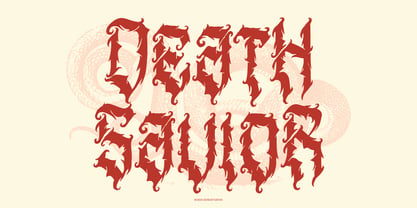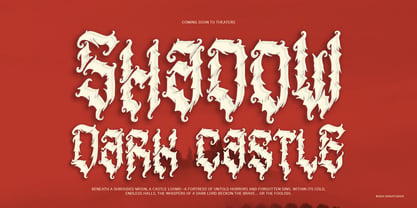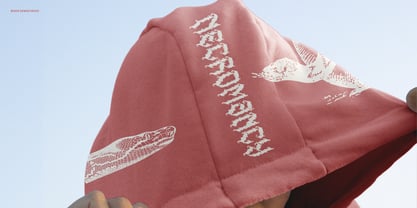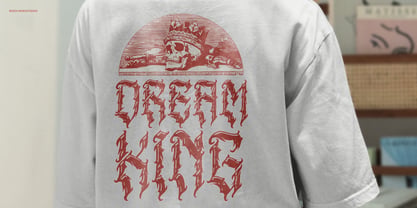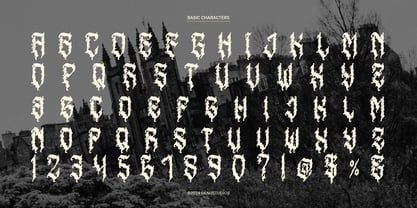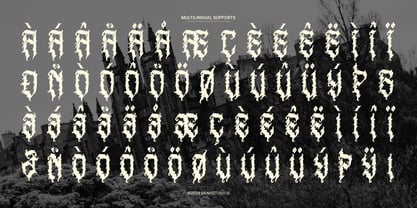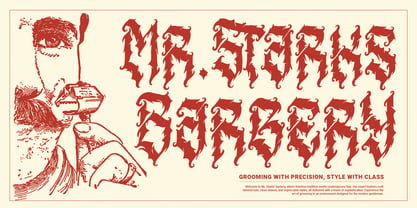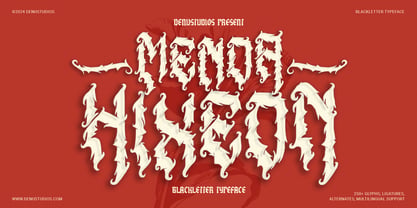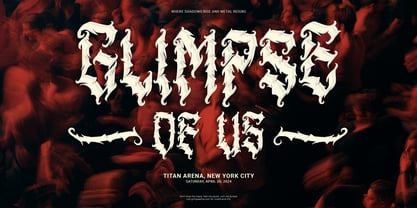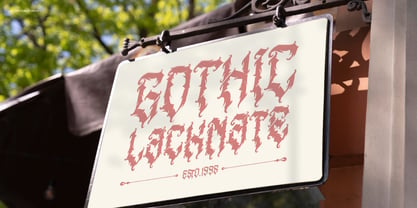
Menda Hixeon
by Denustudio
The Menda Hixeon Font Family was designed by Dede Nugraha and published by Denustudio. Menda Hixeon contains 1 styles.
Menda Hixeon | Blackletter Typeface, from Denustudios, suitable for any projects such as: logos, branding projects, homeware designs, product packaging, mugs, quotes, posters, shopping bags, t-shirts, book covers, name card, invitation cards, greeting cards, label, photography, watermark, special events, and all your other lovely projects that need a Blackletter Typeface taste.
• Regular and Italic
• Standard glyphs
• Alternate and Ligature
• Fonts include multilingual support